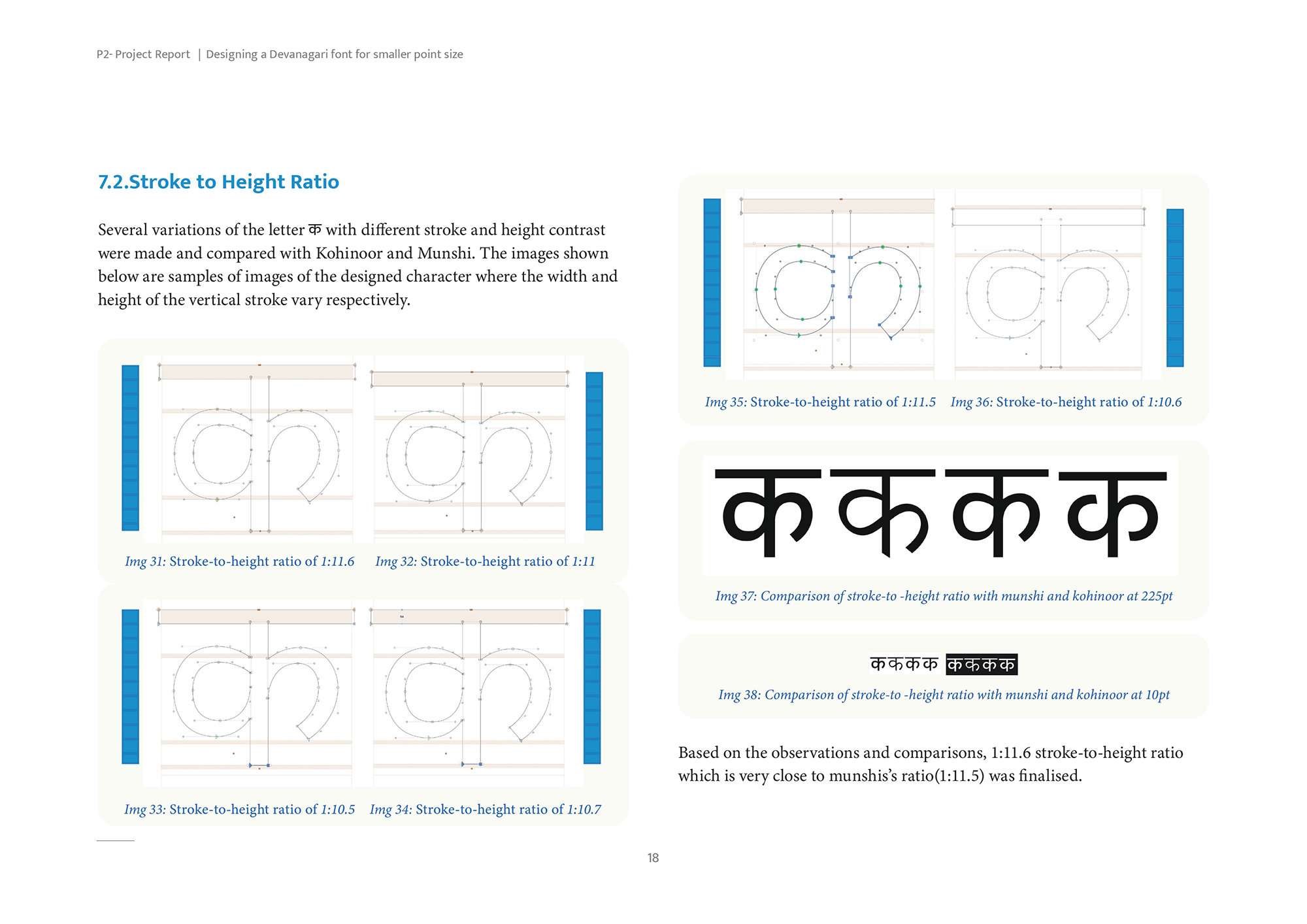
Compact Devanagari Font for Space-Constrained Applications
Developing an open source Devanagari font for packaging design applications
by
Dishant Mehlawat and Prof. Prasad Bokil
IDC, IIT Bombay
Design process that was followed in this project:
• Introduction
- Packaging and Regional Languages
- Aim
- Learning Objectives
• Why make Devanagari font for smaller size printing
- Current scenario of packaging design and printing
• Brief history of Devanagari Script
• Anatomy of Devanagari
• Analysing fonts designed for constraint spaces
- Latin
- Devanagari
• Understanding Legibility
- Factors/properties affecting legibility in smaller size
- Desirable qualities for a body copy font at smaller size
• Designing the font
- Understanding the vertical spacing
- Stroke to Height Ratio
- Finalising the vertical spacing
- Developing a Skeleton
- CharacterDifficult to identify at 8pts or lower
- Counter Spaces
- Loops and Knots
- Ink traps
- Ratio between Shirorekha and Kana
- Explorations
- Joinries
- Corrections
- Final Forms
• Naming Font
• Comparing Fonts
• Font Testing
- Composed words
- Compared Average Words per Minute
• Conclusion
• Resources
• Glyphs